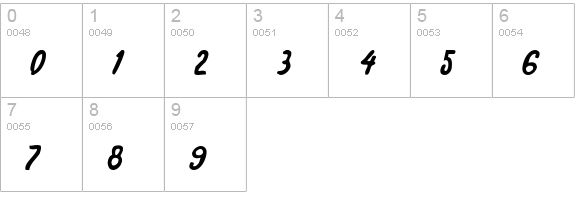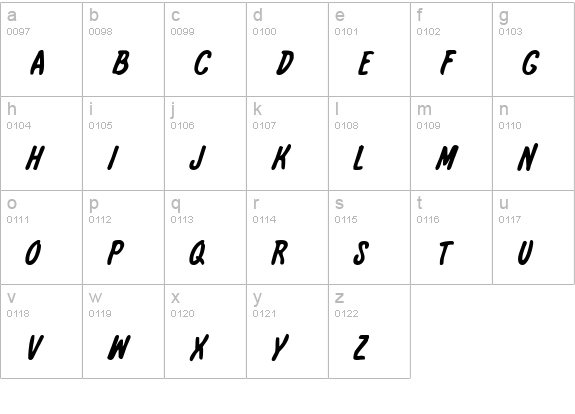
Introducing the International Super Hero font, a powerful and dynamic typeface that is sure to bring out the hero in your designs! This extraordinary font is designed to capture the essence of superhuman strength, courage, and justice, elevating your projects to new heights. With its bold and striking letterforms, International Super Hero demands attention and creates a commanding presence. Each character is meticulously crafted to emulate the iconic symbols of beloved superheroes, making it the perfect choice for comic books, movie posters, gaming graphics, or any project that requires a touch of superhero magic. What sets International Super Hero font apart is not just its captivating design, but also its incredible versatility. Whether you're designing a logo, creating a headline, or crafting a call-to-action, this font will make your message resonate with power and authority. Its legibility ensures that your words will be easily read and understood, while its unique style adds an element of excitement and adventure. And the best part? International Super Hero font is absolutely free! Yes, you read that right. You can download this incredible font at FontsMarket.com without spending a dime. We believe that creativity should be accessible to everyone, and that's why we are thrilled to offer this font as a free resource for designers, artists, and superhero enthusiasts alike. So, what are you waiting for? Unleash your inner hero and download the International Super Hero font today. Transform your designs into a force to be reckoned with, and let your imagination soar to new heights. With this incredible font by your side, you'll be ready to save the world, one design at a time.